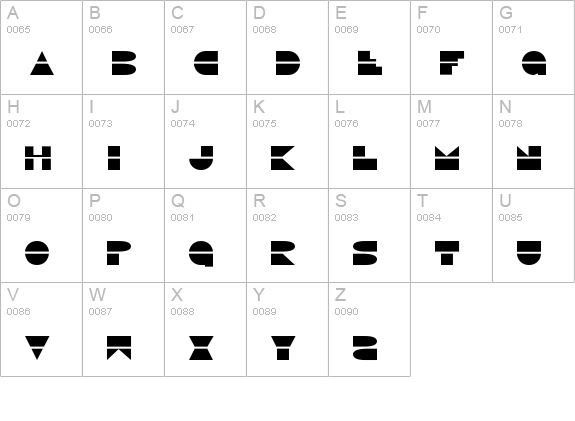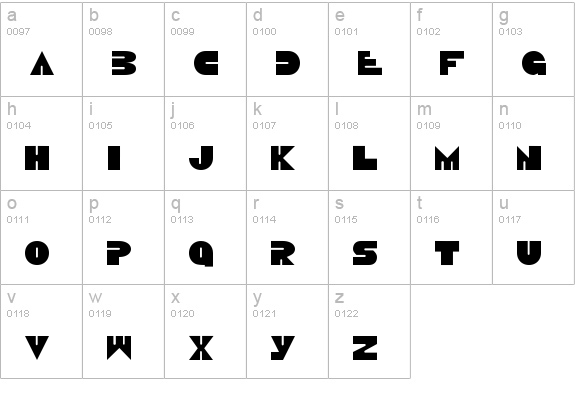
Introducing Disco Duck font, a funky and retro-inspired typeface that will bring a touch of disco fever to your designs! This lively and playful font is perfect for party invitations, posters, album covers, and more. With its bold and dynamic letterforms, Disco Duck exudes energy and excitement, making it the perfect choice for projects that need a fun and vibrant look. And the best part? Disco Duck font is completely free to download at FontsMarket.com! So go ahead and add a dash of retro charm to your designs with this fabulous font. Get your groove on with Disco Duck today!